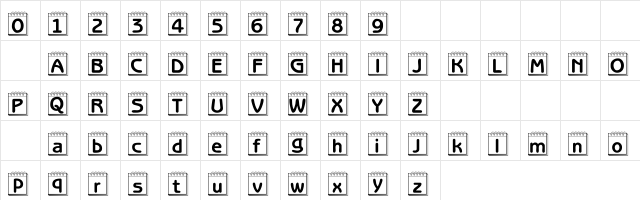
101! Day Planner Regular
Design Context for 101! Day Planner
101! Day Planner is a composed and adaptable typeface that performs quietly and consistently across a wide range of design contexts.